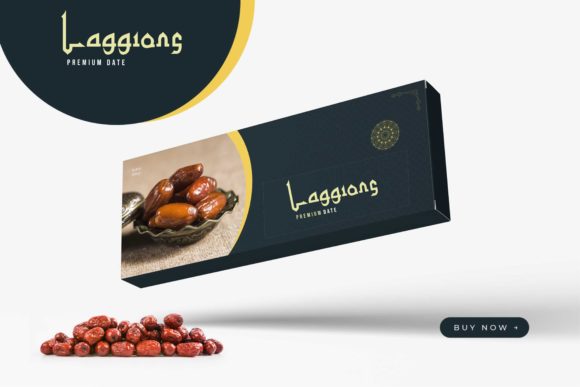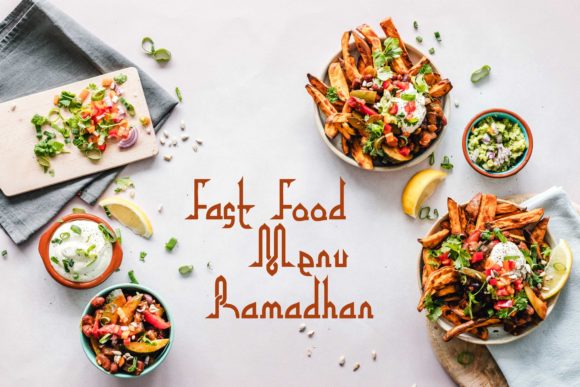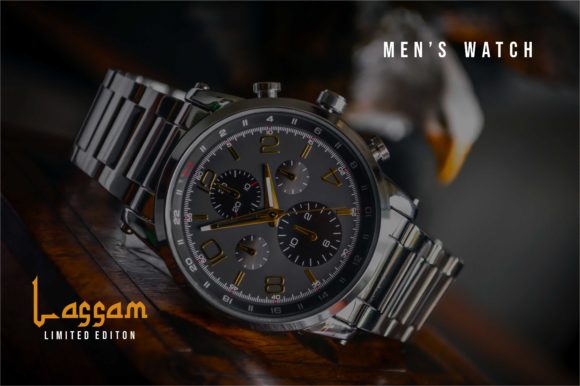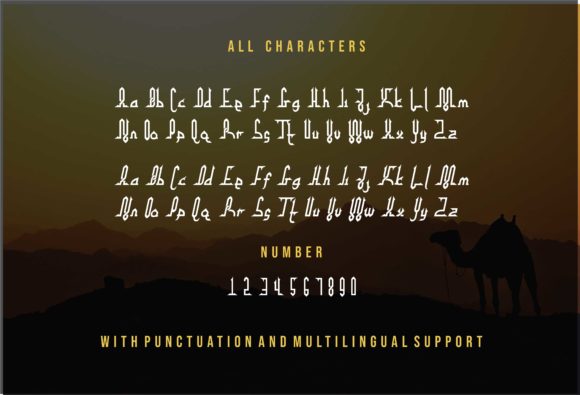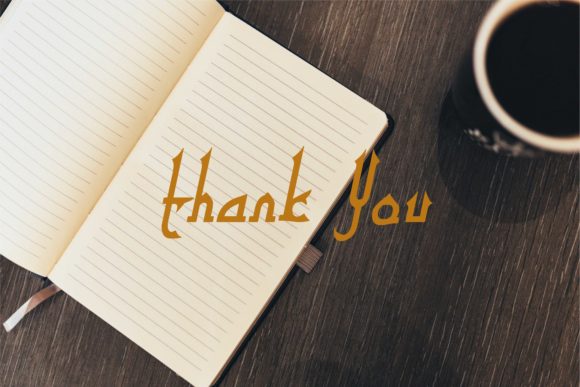
Introducing Al-Qadisiyah Font: The Perfect Arabic-Style Display Font for Creative Projects
Are you a designer or crafter looking for a unique and stunning font to elevate your creative projects? Look no further than Al-Qadisiyah Font, a beautiful display font with an Arabic style that’s perfect for a variety of applications. From packaging and branding to book covers and posters, Al-Qadisiyah Font is the ideal choice for adding a touch of elegance and sophistication to your work.
What is Al-Qadisiyah Font?
Al-Qadisiyah Font is a carefully crafted display font that draws inspiration from traditional Arabic typography. Its intricate and ornate design makes it perfect for use in high-end branding, luxury packaging, and creative projects where a touch of cultural flair is desired. With its unique blend of classic and modern elements, Al-Qadisiyah Font is sure to make your designs stand out from the crowd.
Key Features of Al-Qadisiyah Font
- Arabic-style design: Al-Qadisiyah Font features a stunning Arabic-style design that’s perfect for adding a touch of cultural authenticity to your projects.
- Display font: This font is specifically designed for use in display settings, making it perfect for headlines, titles, and other prominent text elements.
- Highly legible: Despite its ornate design, Al-Qadisiyah Font is highly legible, even at smaller sizes.
- Multilingual support: This font supports multiple languages, including Arabic, English, and other languages that use the Latin script.
Use Cases for Al-Qadisiyah Font
Al-Qadisiyah Font is a versatile font that can be used in a wide range of creative projects, including:
- Packaging design: Add a touch of luxury and sophistication to your product packaging with Al-Qadisiyah Font.
- Branding and advertising: Use Al-Qadisiyah Font to create stunning brand identities, ads, and marketing materials that stand out from the crowd.
- Book covers and publishing: This font is perfect for book covers, magazine covers, and other publishing projects where a touch of elegance is desired.
- Poster design: Create eye-catching posters and flyers with Al-Qadisiyah Font that are sure to grab attention.
Why Choose Al-Qadisiyah Font?
With so many fonts to choose from, why should you choose Al-Qadisiyah Font for your creative projects? Here are just a few reasons:
- Unique and distinctive design: Al-Qadisiyah Font features a unique and distinctive design that’s sure to set your projects apart from the crowd.
- High-quality typography: This font is carefully crafted to ensure high-quality typography that’s both legible and beautiful.
In conclusion, Al-Qadisiyah Font is a stunning Arabic-style display font that’s perfect for a wide range of creative projects. With its unique and distinctive design, high-quality typography, and ease of use, this font is sure to become a favorite among designers and crafters. Whether you’re working on packaging design, branding, book covers, or posters, Al-Qadisiyah Font is the perfect choice for adding a touch of elegance and sophistication to your work.